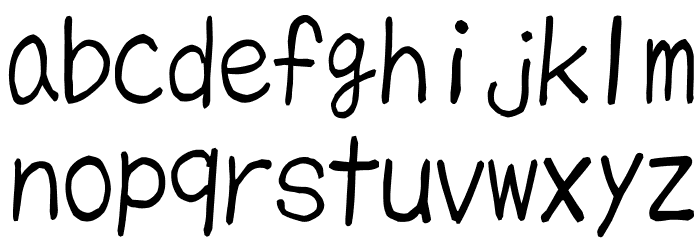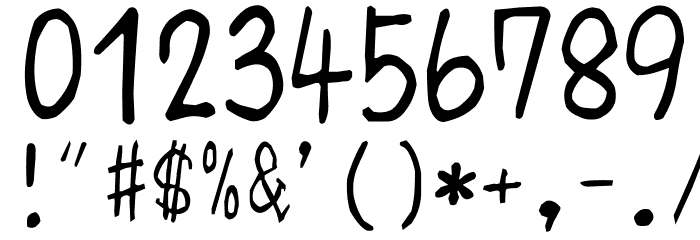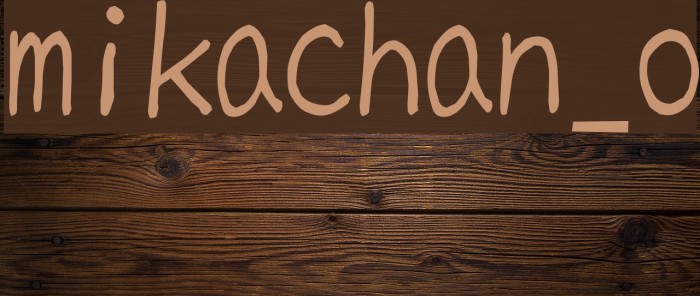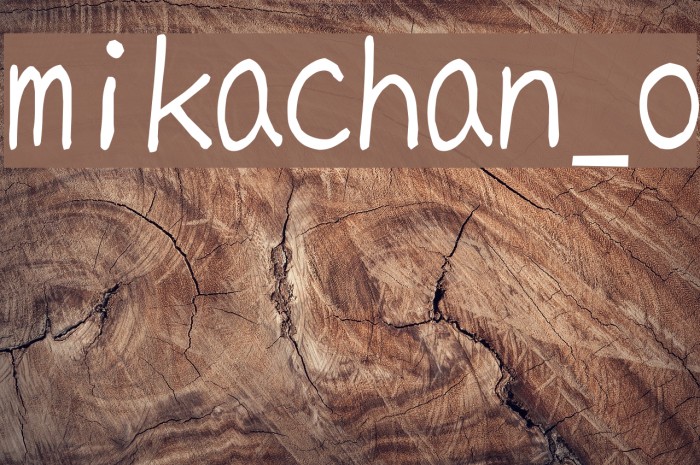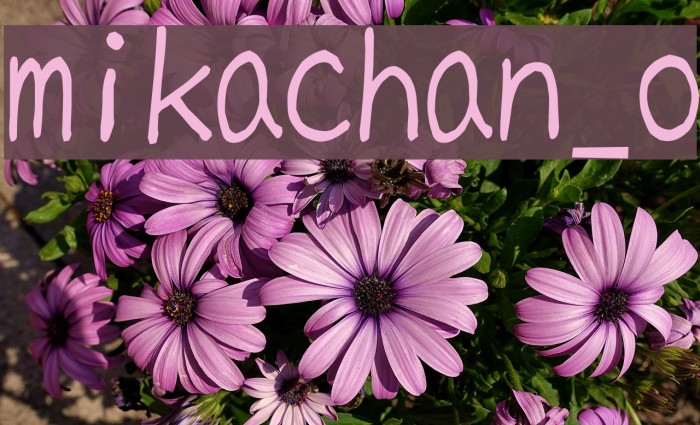
mikachan_o Font
This font features a playful and informal handwritten style, characterized by its irregular strokes and whimsical appearance. The letters have a casual, friendly look, with slightly varying heights and widths that give it a natural, hand-drawn feel. The uppercase and lowercase letters maintain a consistent style, with rounded edges and a slight tilt that adds to its charm. The numerals and special characters are equally playful, making this font ideal for projects that require a personal touch. Its overall appearance is approachable and fun, making it suitable for creative and informal applications.
A playful, handwritten font with a whimsical and informal style.
- Proposed Projects: Ideal for greeting cards, children's books, casual invitations, and playful branding.
- Category: Handwritten
- Overall Style: Casual, Playful
- Use Case: Headlines, Informal text, Creative projects